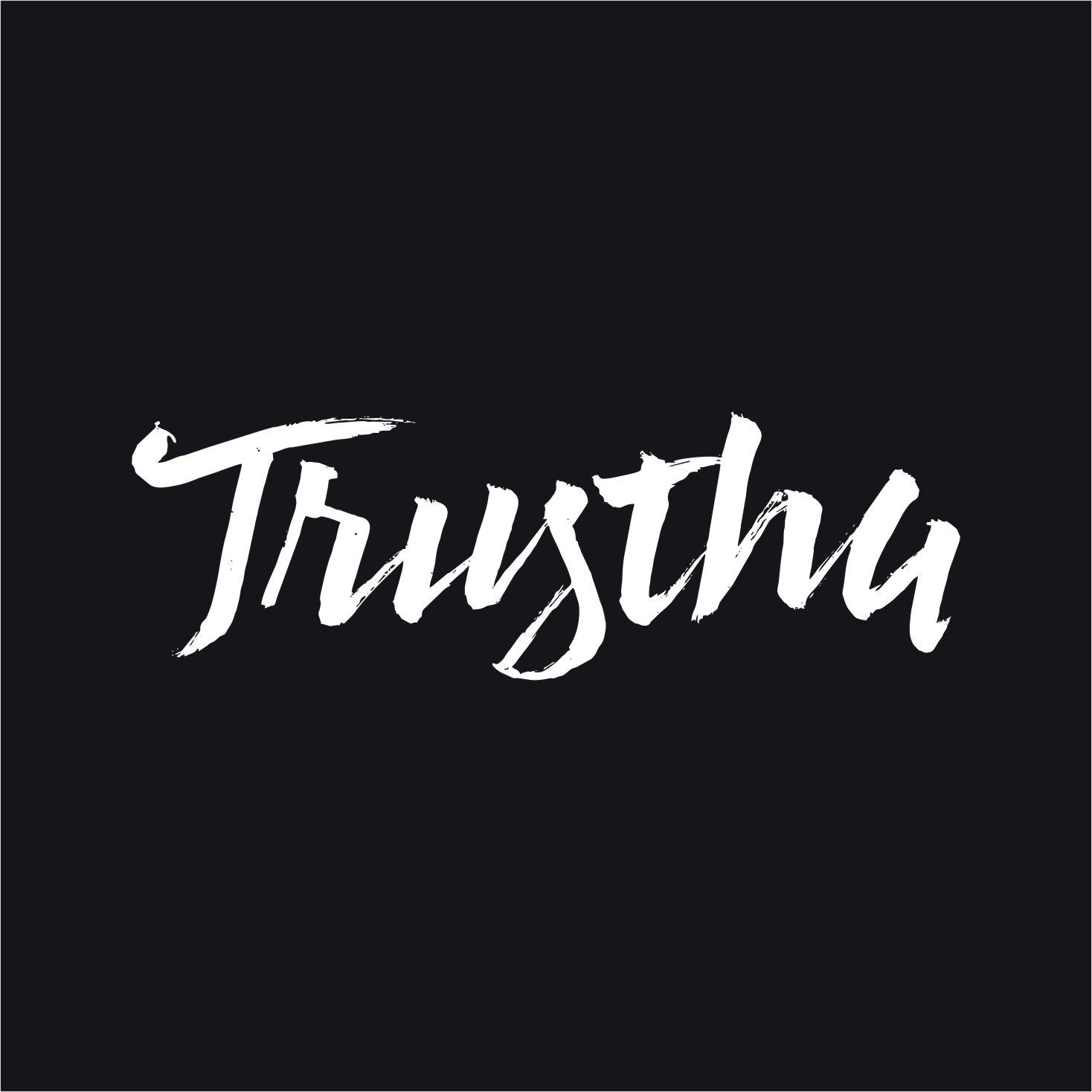
Bellaria Soonata is a stunning brush script font. This font looks great as a logotype or headline, and can give your designs an authentic and warm style.